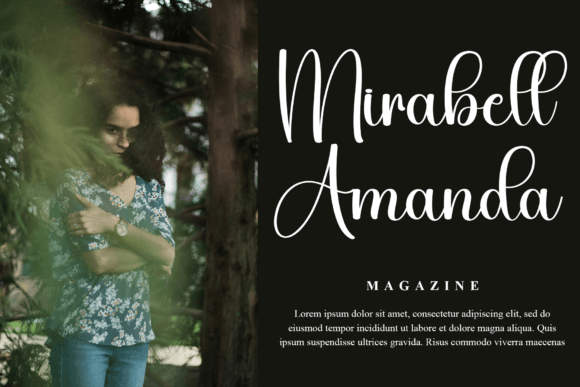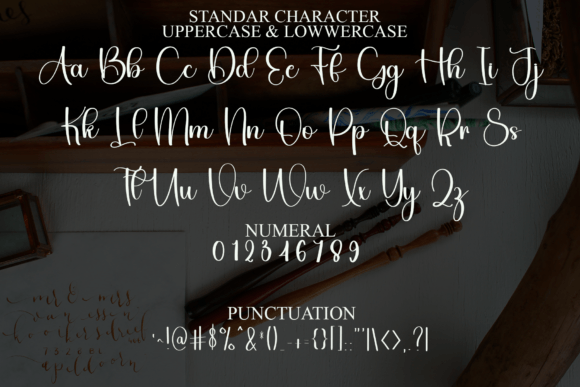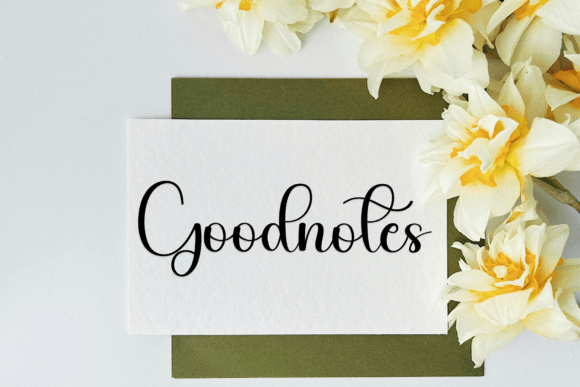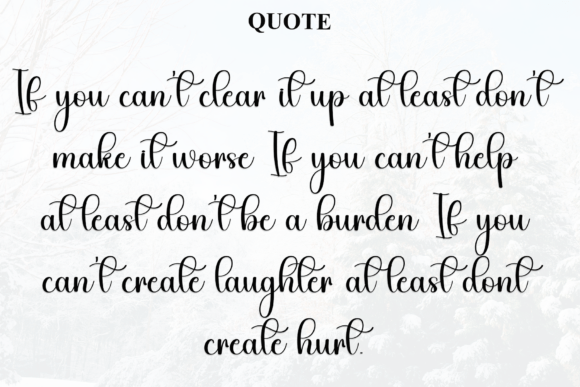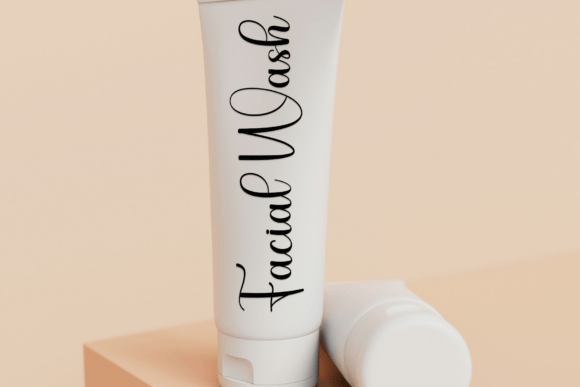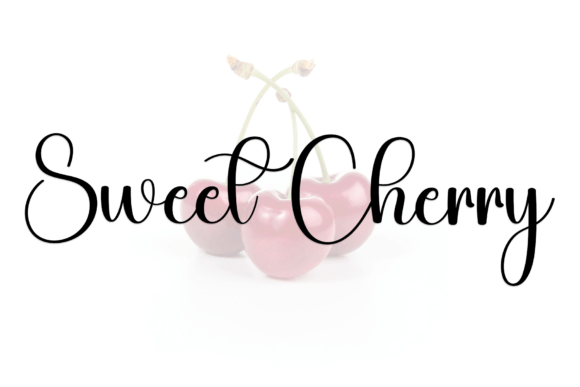
The Quest for the Perfect Font: Discovering Good Cherry
I’ll never forget the time I was working on a wedding invitation project, and my client asked for a font that was “elegant, yet playful.” I scoured the internet, tried out countless fonts, but nothing seemed quite right. That was until I stumbled upon Good Cherry, a stylish and incredibly elegant script font that has since become a staple in my design toolkit.
An Honest Review of Good Cherry
- ✨ Elegant and Refined: Good Cherry has a sophisticated feel that’s perfect for wedding invitations, thank you cards, and other formal designs.
- ✅ Highly Versatile: This font can be used for a wide range of projects, from logos and business cards to quotes and greeting cards.
- 💫 Beautiful Handwritten Touch: Good Cherry has a lovely handwritten quality that adds a personal touch to any design.
While Good Cherry is an excellent font, there are a few things to keep in mind:
- ⚠️ Legibility at Small Sizes: Like many script fonts, Good Cherry can be a bit tricky to read at very small sizes. Make sure to test it out at different sizes to ensure it’s legible for your project.
- 🤔 Limited Use for Body Text: While Good Cherry is perfect for headings and titles, it’s not the best choice for large blocks of body text. Stick to using it for shorter phrases and sentences.
The Story Behind Good Cherry
Good Cherry was designed with the intention of creating a beautiful, elegant script font that would add a touch of sophistication to any design. The designer drew inspiration from classic calligraphy and modern typography to create a font that’s both refined and playful.
Q: What type of projects is Good Cherry best suited for?
A: Good Cherry is perfect for wedding invitations, thank you cards, quotes, greeting cards, logos, business cards, and any other design that needs a handwritten touch.
Q: Does Good Cherry support OpenType features?
A: Yes, Good Cherry supports advanced OpenType features like glyphs, stylistic alternates, and ligatures.